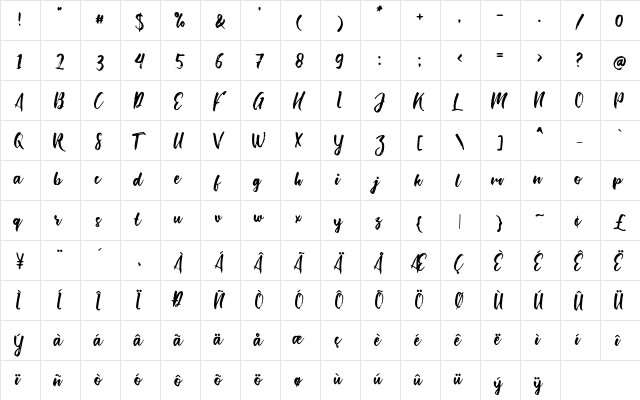
Bishella Script Regular
| Foundry | PointlabStudio |
| Designer | PointlabStudio |
Design Context for Bishella Script Typeface
Bishella Script brings a calligraphic fluidity to the page — its connecting strokes and expressive curves give it an unmistakably human quality.
Font Pairing: Combine Bishella Script with a simple geometric sans for maximum contrast — the tension between flowing curves and clean structure is a classic typographic pairing.
Pro Tip: Pair Bishella Script with a clean sans-serif for supporting text. The contrast between fluid script and geometric structure creates an elegant typographic hierarchy.